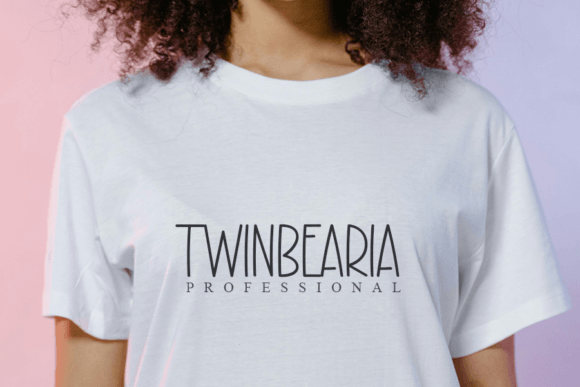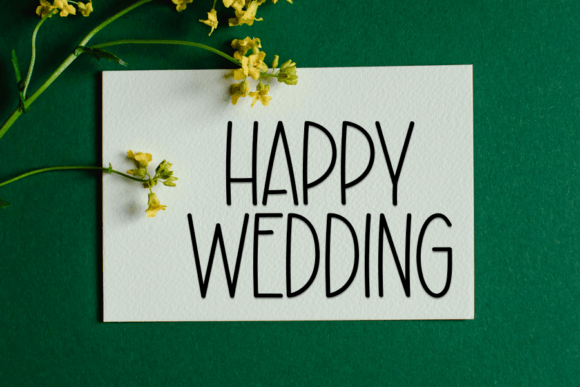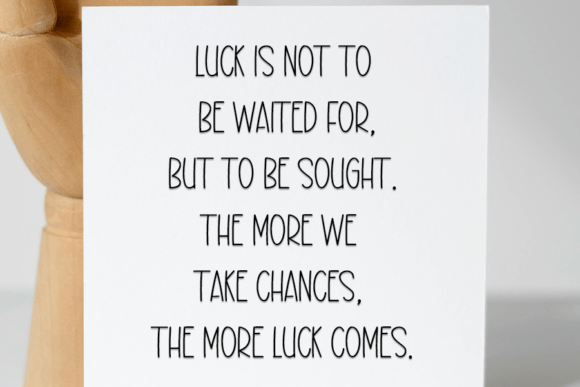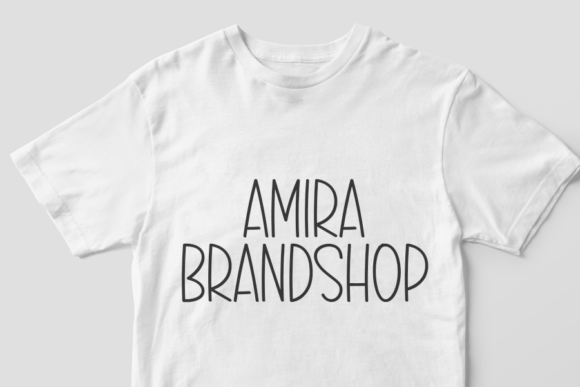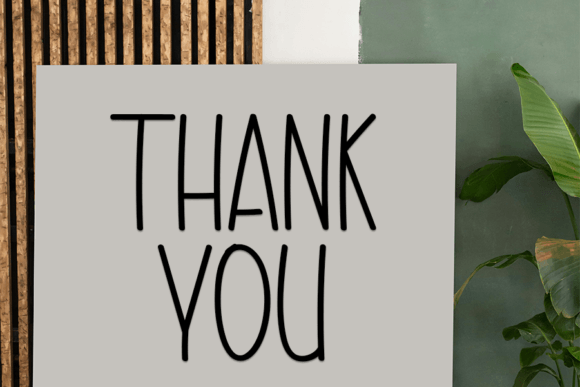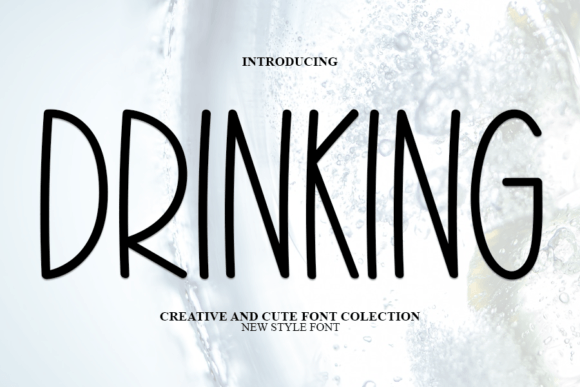
Introducing Drinking Font: The Ultimate Modern Handwritten Font
Are you tired of using the same old fonts for your designs and crafts? Look no further! Drinking Font is here to revolutionize the way you approach typography. This cool and modern handwritten font is perfect for a wide range of projects, from digital designs to greeting cards, and everything in between.
What Makes Drinking Font So Special?
Drinking Font is more than just a pretty face. Its unique and modern handwritten style makes it incredibly versatile, allowing you to use it for a variety of occasions. Whether you’re a designer, crafter, or simply someone who loves to create, this font has the potential to become your go-to choice.
Perfect for Crafts and Digital Design
Drinking Font is a dream come true for crafters and digital designers. Its clean and elegant lines make it perfect for use in:
- Crafts: Use Drinking Font to add a personal touch to your DIY projects, such as scrapbooking, card making, and journaling.
- Digital Design: Add a touch of sophistication to your digital designs, including social media graphics, presentations, and website headers.
Great for Presentations and Greeting Cards
Drinking Font is also perfect for use in presentations and greeting cards. Its modern and stylish look makes it ideal for:
- Presentations: Use Drinking Font to add a touch of elegance to your presentations, making them stand out from the crowd.
- Greeting Cards: Create beautiful and personalized greeting cards for any occasion, from birthdays to weddings.
Why Choose Drinking Font?
So, why should you choose Drinking Font over other fonts? Here are just a few reasons:
- Unique Style: Drinking Font has a unique and modern handwritten style that sets it apart from other fonts.
- Versatility: This font is incredibly versatile, making it perfect for use in a wide range of projects.
Tips for Using Drinking Font
Here are a few tips for getting the most out of Drinking Font:
- Experiment with Different Sizes: Drinking Font looks great in a variety of sizes, so don’t be afraid to experiment to find the perfect size for your project.
- Pair it with Other Fonts: Drinking Font pairs well with a variety of other fonts, so try pairing it with different fonts to create a unique look.
- Use it for Headings and Titles: Drinking Font is perfect for use in headings and titles, adding a touch of elegance and sophistication to your projects.